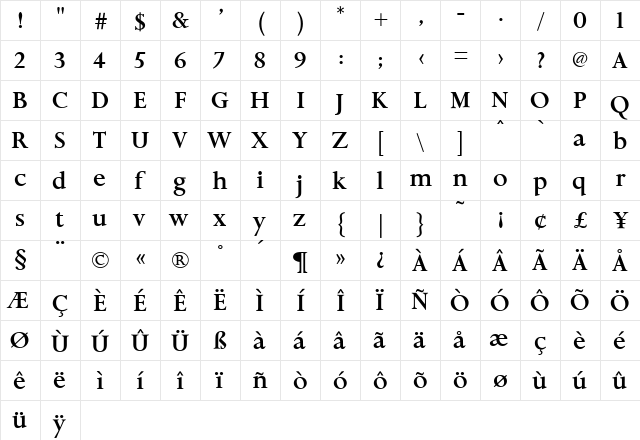
Aries Bold Font Preview
Aries Bold
Aries Bold Font Details
| Foundry | by Panache Typography, |
Design Context for Aries Typeface
Aries offers clean, dependable letterforms without strong stylistic allegiance, making it a practical choice for designers who need flexibility. The heavy weight commands attention and anchors typographic hierarchies.